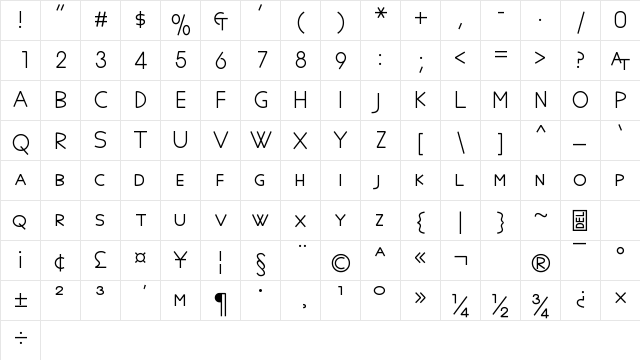
Akkadian Regular
| Designer | George Douros |
Design Context for Akkadian Typeface
Akkadian offers clean, dependable letterforms without strong stylistic allegiance, making it a practical choice for designers who need flexibility.
Pro Tip: Use Akkadian in both headline and body roles to test its range before committing to a single application.